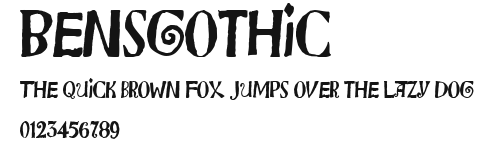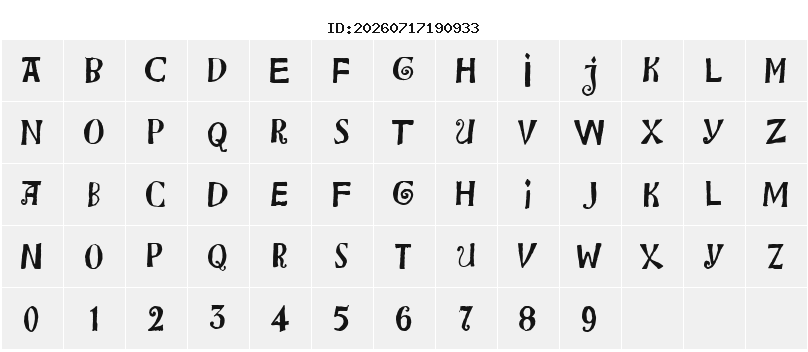
• Copyright: Bensgothic font v1.0 ©1998 Harold Lohner All Rights Reserved. Based on a handlettering style of the artist Ben Shahn. SHAREWARE. $5 gets you the companion font of ligatures. HLohner@aol.com http://members.aol.com/fontner
Bensgothic.ttf is a modern, elegant sans-serif font designed for ultimate readability and visual harmony. Perfect for branding, headlines, web design, and print materials.